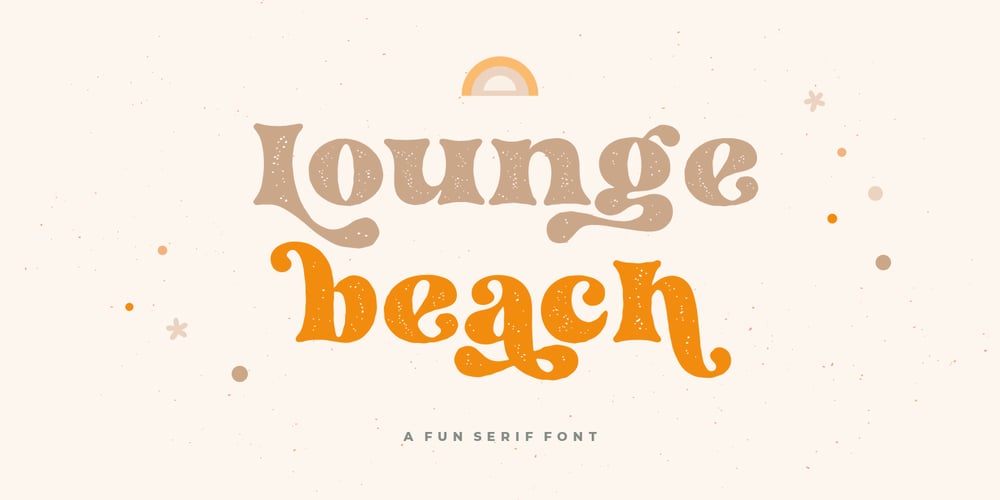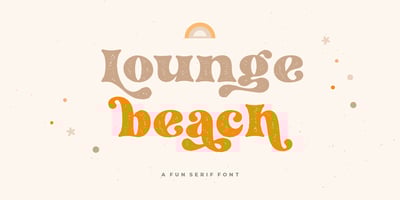
Lounge Beach Font Family was designed by Burhan Afif and published by HansCo. Lounge Beach contains 2 styles and family package options. Long beach font is a retro serif and bold display font. You will get two types of fonts in this pack, clean version and textured version. Use this display font to add that special retro touch to any design idea you can think of!. Masterfully designed to become a true favorite, this font has the potential to bring each of your creative ideas to the highest level!Very suitable for logotype, Stickers, Packaging design, Cricut Project, headlines, brand identity, t shirt or apparel industry, posters, magazines, books, YouTube, Instagram, websites, or any of your creative design projects.Enjoy!